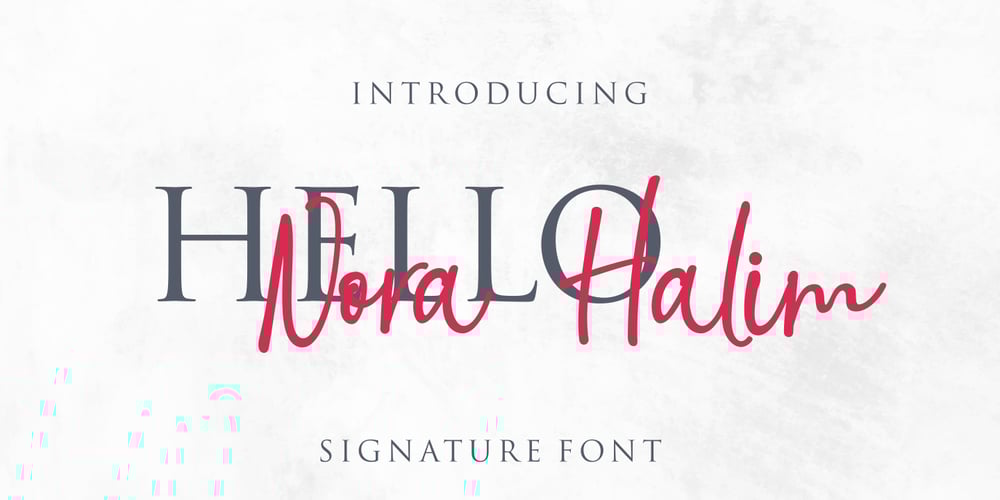
Nora Halim Font Family was designed by Dian Haniffan Hadi and published by Beary. Nora Halim contains 1 styles and family package options. Introducing the elegant Nora Halim! Nora Halim is a Scrip font, every single letters has been carefully crafted to make your text looks beautiful. With modern script style this font will be perfect for many different project ex: photography, watermark, quotes, blog header, poster, wedding, branding, logo, fashion, apparel, letter, invitation, stationery, etc.